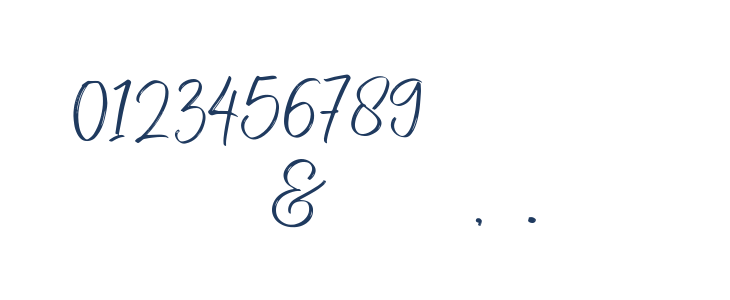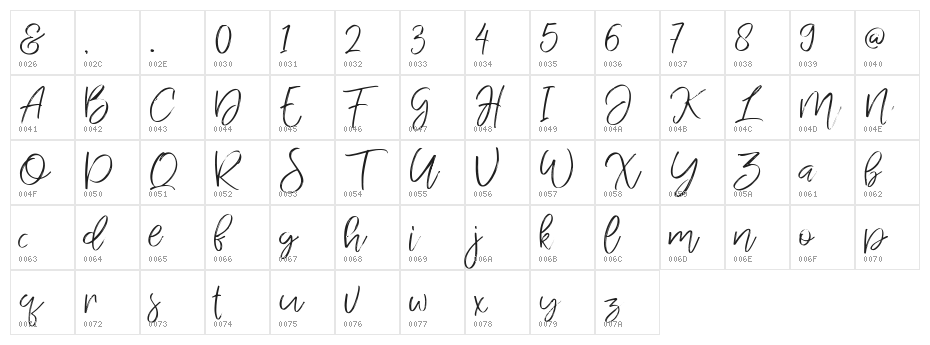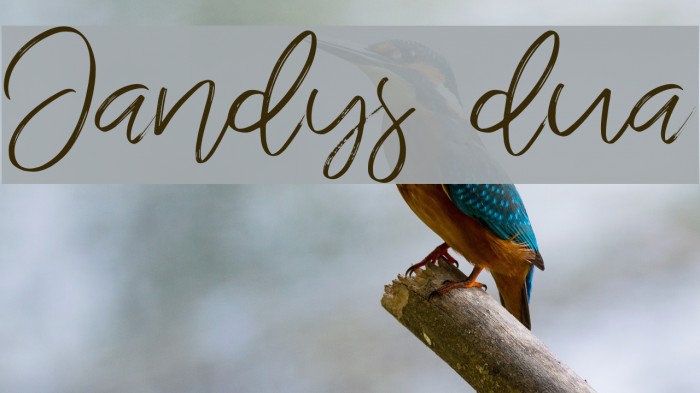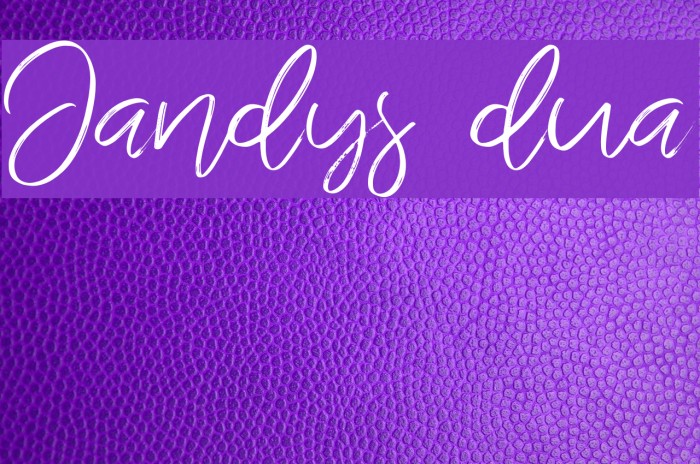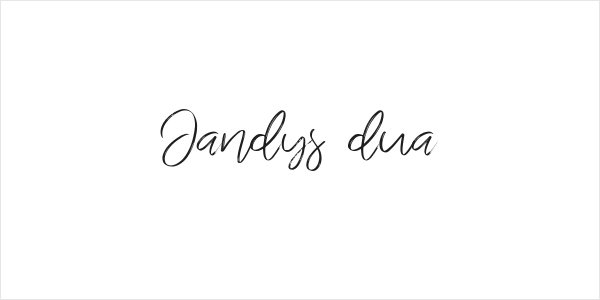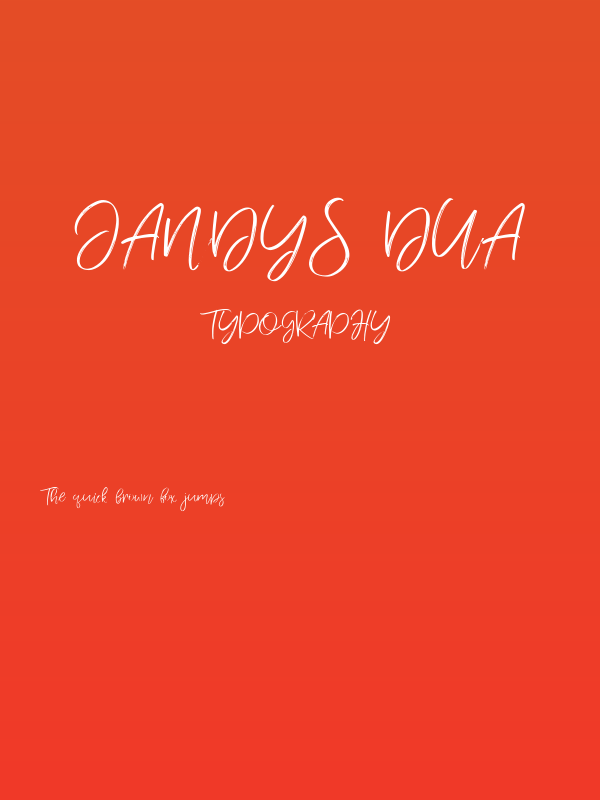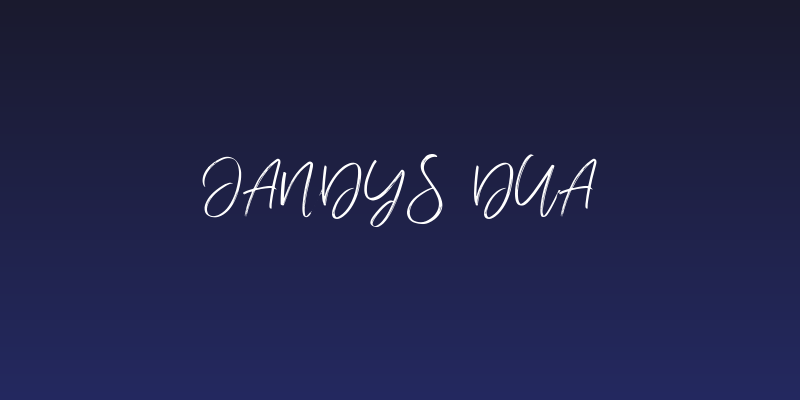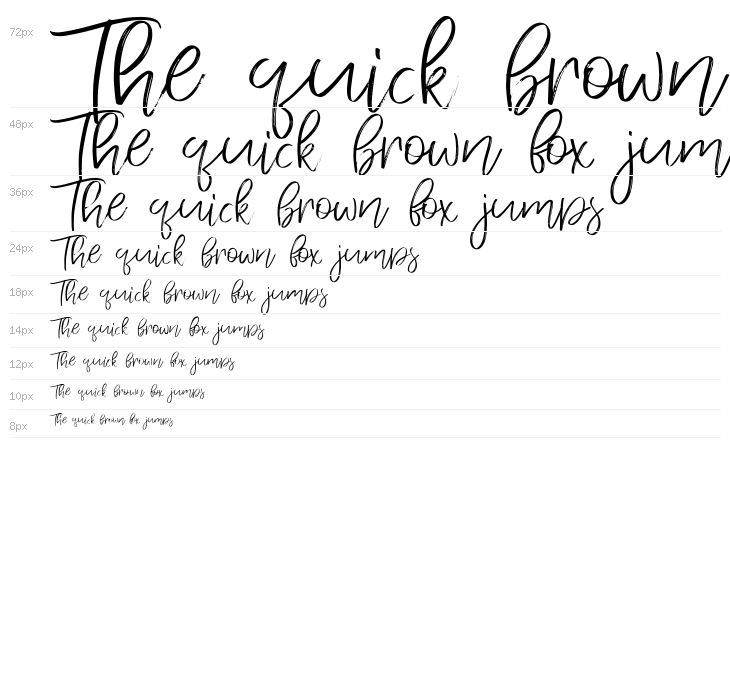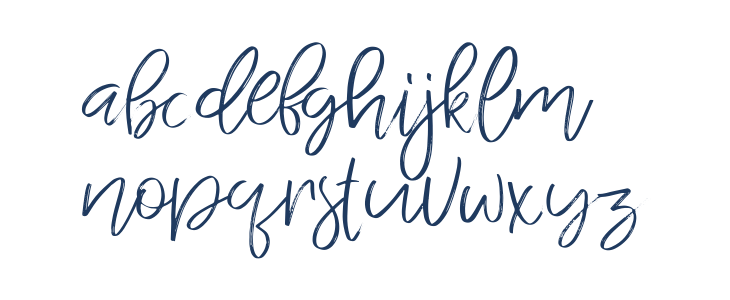
Jandys dua Font
Jandys dua Description
This font features a lively and expressive script style, characterized by fluid, interconnected strokes that mimic the natural flow of handwriting. The uppercase letters are bold and dynamic, with a slight slant that adds a sense of movement and elegance. The lowercase letters maintain a consistent style, with smooth curves and loops that enhance the handwritten feel. Numbers are clear and legible, maintaining the same flowing aesthetic. The special characters are creatively integrated, adding to the font's versatility. Overall, this font exudes a playful yet sophisticated charm, making it suitable for a variety of creative projects.